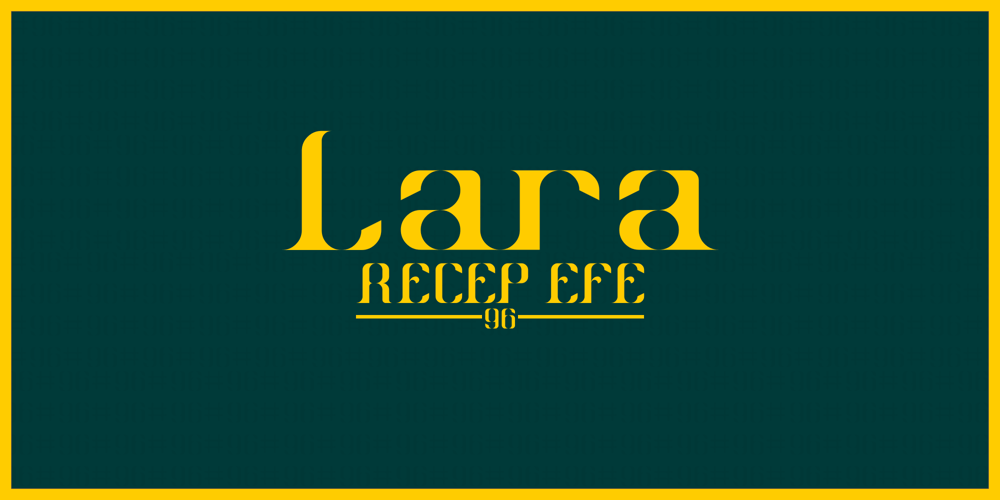
Lara
Lara font
Lara Font Family was designed by Efe Avcı and published by Efe Avcı. Lara contains 2 styles and family package options. Design-wise, it is an elegant, fine-grained font. There are 218 glyphs.